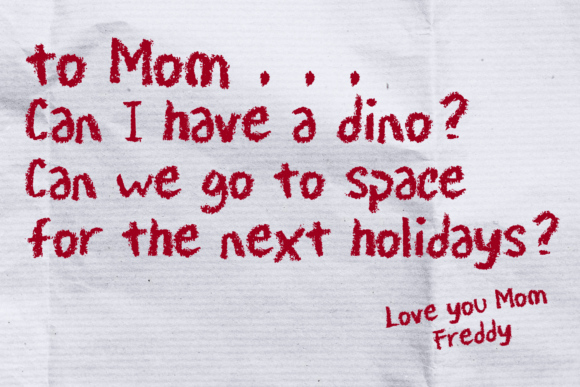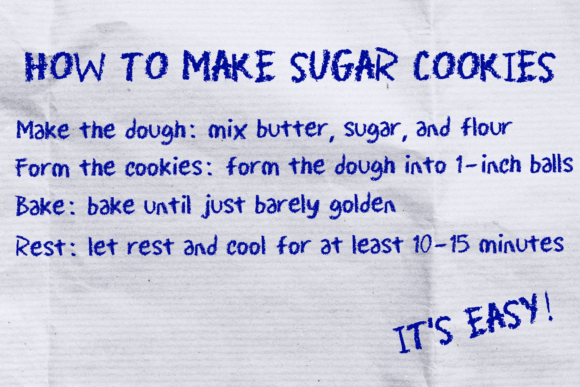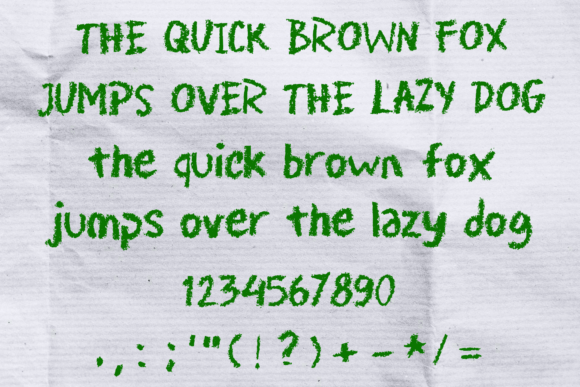
Unleash Your Creativity with Crayon Scribble Font
Are you tired of using the same old fonts in your designs? Do you want to add a touch of playfulness and imagination to your artwork? Look no further than Crayon Scribble, a unique handwriting font that is sure to bring a smile to your face. Inspired by the whimsical strokes of a chalk or crayon, this merry and animated typeface is perfect for designers and crafters who want to add a dash of excitement to their projects.
The Power of Crayon Scribble
Crayon Scribble is more than just a font – it’s an experience. It’s a way to transport your designs to a world of playful imagination, where creativity knows no bounds. With its distinctive, hand-scribbled feel, this font is sure to elevate any design project to unprecedented heights. Whether you’re working on a cheeky sticker, a statement t-shirt, an awe-inspiring logo, or a striking magazine or book cover, Crayon Scribble is the perfect choice.
Endless Possibilities
One of the best things about Crayon Scribble is its versatility. This font can be used in a wide range of design projects, from comical cartoons to social media graphics. Its impact knows no bounds, and it’s sure to leave a lasting impression on your audience. Imagine being able to add a touch of whimsy to your designs, to make them stand out from the crowd and capture the attention of your viewers. With Crayon Scribble, you can do just that.
Breathe Life into Your Designs
Crayon Scribble doesn’t just add text to your designs – it breathes life into them. This font has a way of infusing your artwork with enthusiasm, delight, and a heart-fluttering level of excitement. It’s the perfect way to add a super cool touch to your designs, to make them truly unforgettable. Whether you’re a designer, a crafter, or simply someone who loves to create, Crayon Scribble is the perfect tool to help you bring your ideas to life.
The Benefits of Crayon Scribble
So why choose Crayon Scribble over other fonts? Here are just a few benefits of using this amazing font:
- Unique and distinctive: Crayon Scribble is a one-of-a-kind font that is sure to make your designs stand out from the crowd.
- Playful and imaginative: This font is perfect for designers and crafters who want to add a touch of playfulness and imagination to their artwork.
- Versatile: Crayon Scribble can be used in a wide range of design projects, from stickers and t-shirts to logos and magazine covers.
Get Creative with Crayon Scribble
So why wait? Embrace the fun and start scribbling with style with Crayon Scribble. This amazing font is sure to bring a new level of creativity and excitement to your designs. Whether you’re working on a personal project or a client’s brief, Crayon Scribble is the perfect choice. So go ahead, get creative, and see what amazing designs you can come up with using this incredible font.
In conclusion, Crayon Scribble is a must-have font for designers and crafters who want to add a touch of playfulness and imagination to their artwork. With its unique, hand-scribbled feel and versatile design, this font is sure to elevate any design project to unprecedented heights. So why wait? Choose Crayon Scribble today and start creating designs that are truly unforgettable.